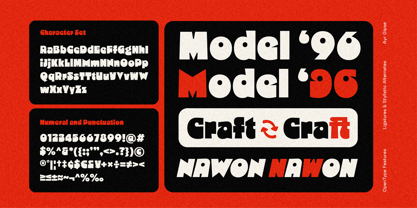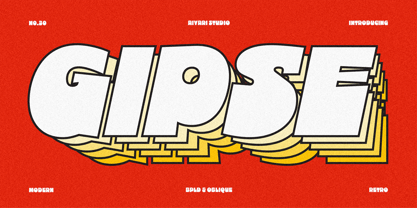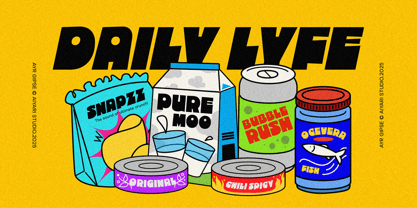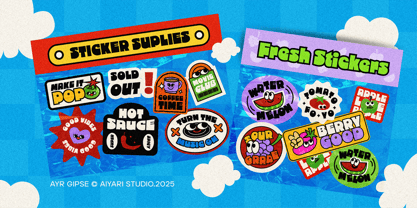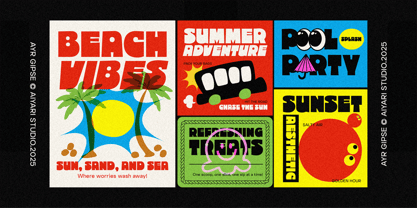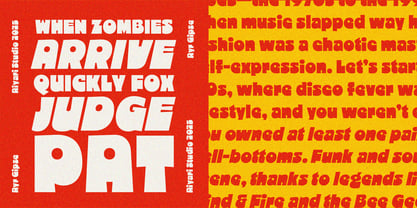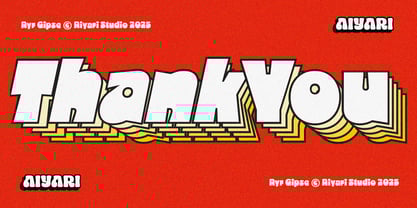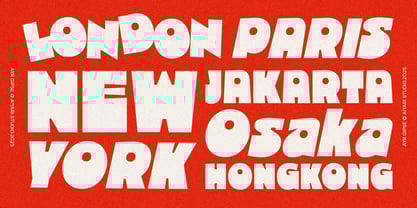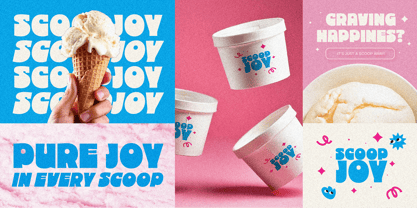
Ayr Gipse
von Aiyari
Die Schriftfamilie Ayr Gipse wurde von Ricky Rinaldi entworfen und von Aiyari veröffentlicht. Ayr Gipse enthält 2 Stile und Familienpaketoptionen.
Intorducing Gipse A bold, retro-inspired display typeface with chunky, geometric letterforms. that brings charm of 1930s vintage comic. The style is reminiscent of mid-century modern typography with exaggerated proportions, rounded counters, and a mix of sharp and soft angles. With thick strokes and irregular proportion Gipse ideal for eye-catching posters and logotype.
Also Gipse is perfect for bold headings, stylish invitations, unique logo designs, eye-catching quotes, trendy apparel, vibrant flyers, striking posters, elegant greeting cards, creative product packaging, captivating book covers, artistic printed quotes, standout album covers, and dynamic movie titles.
Designer: Ricky Rinaldi
Herausgeber: Aiyari
Foundry: Aiyari
Eigentümer des Designs: Aiyari